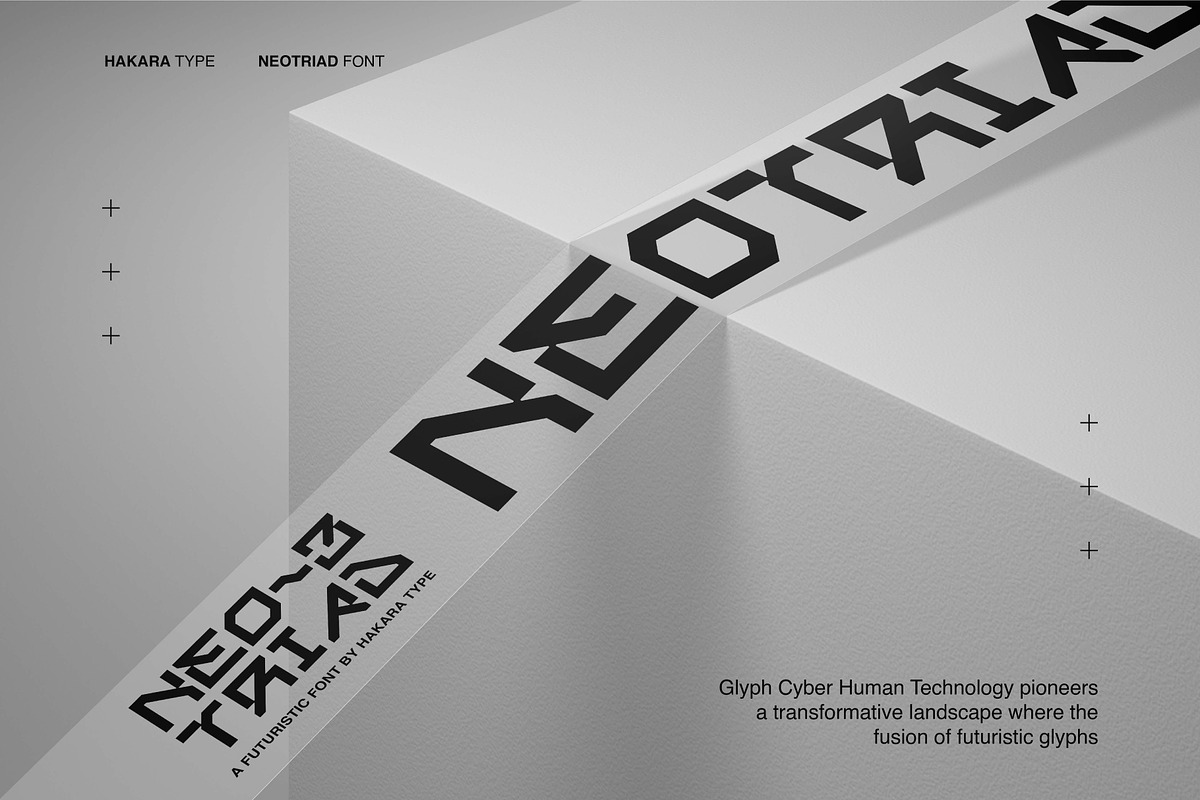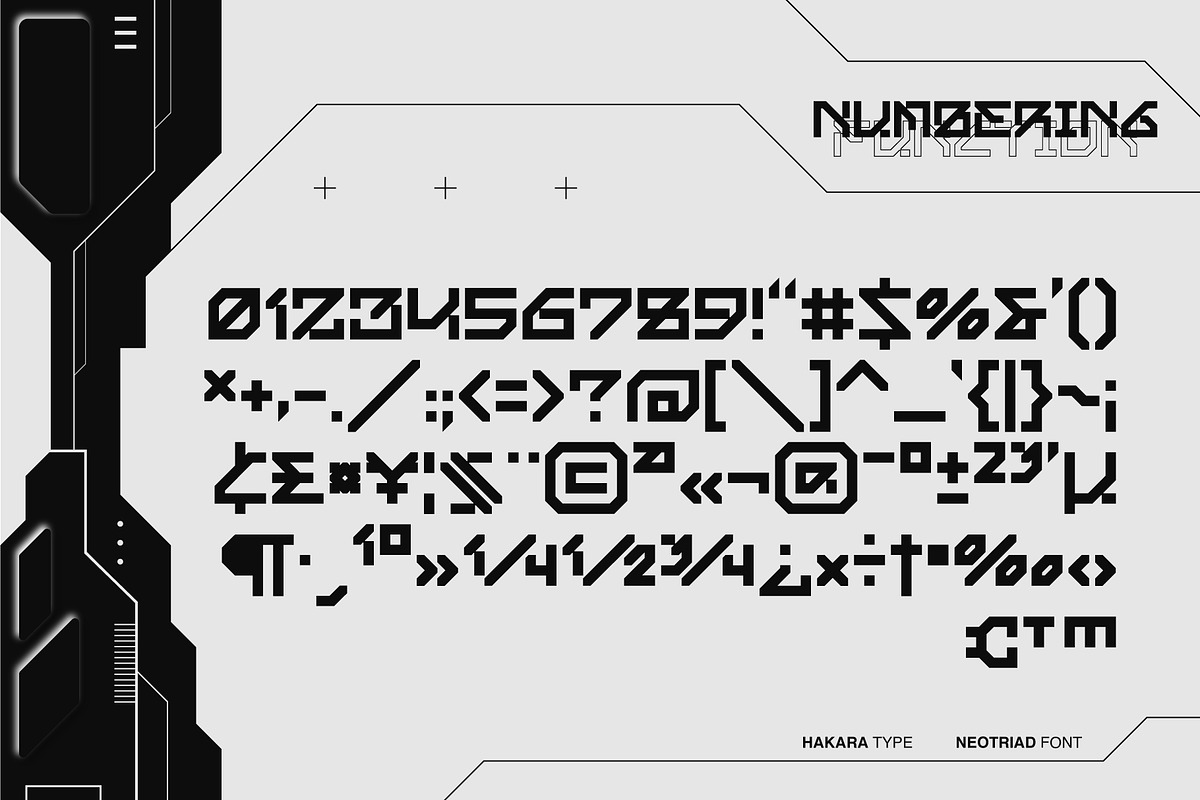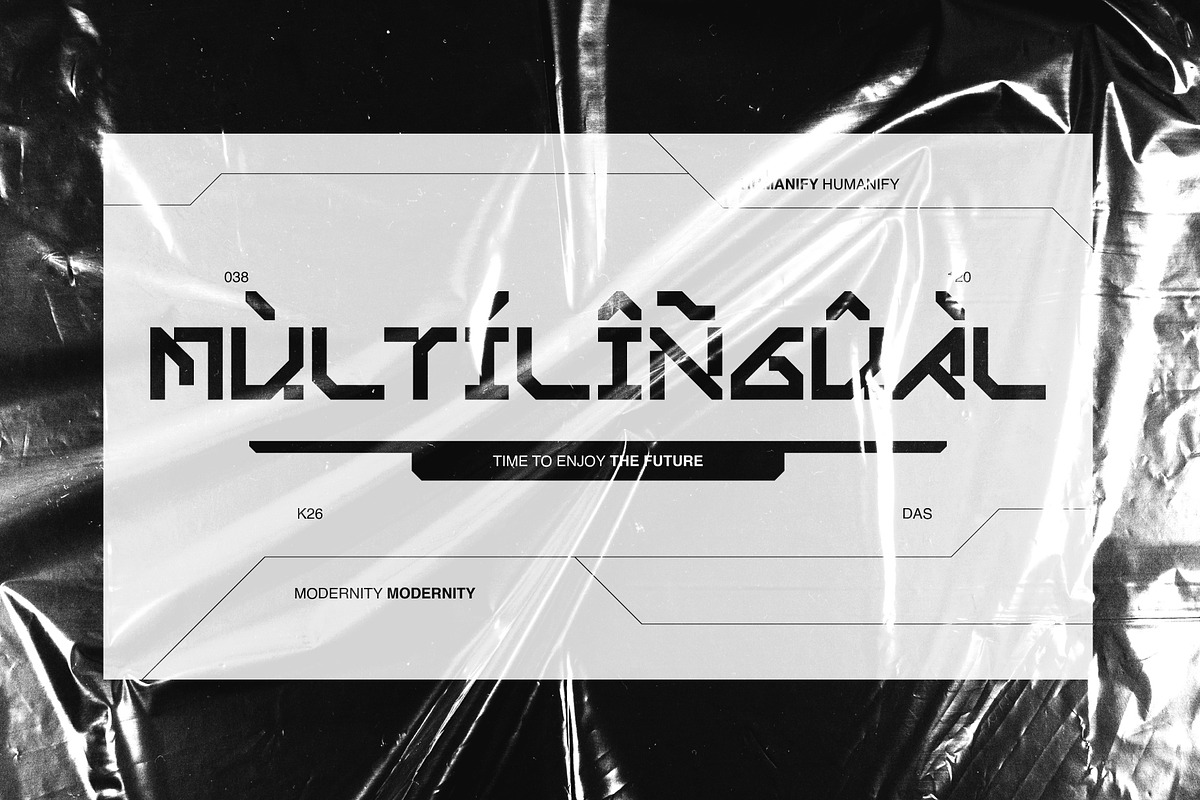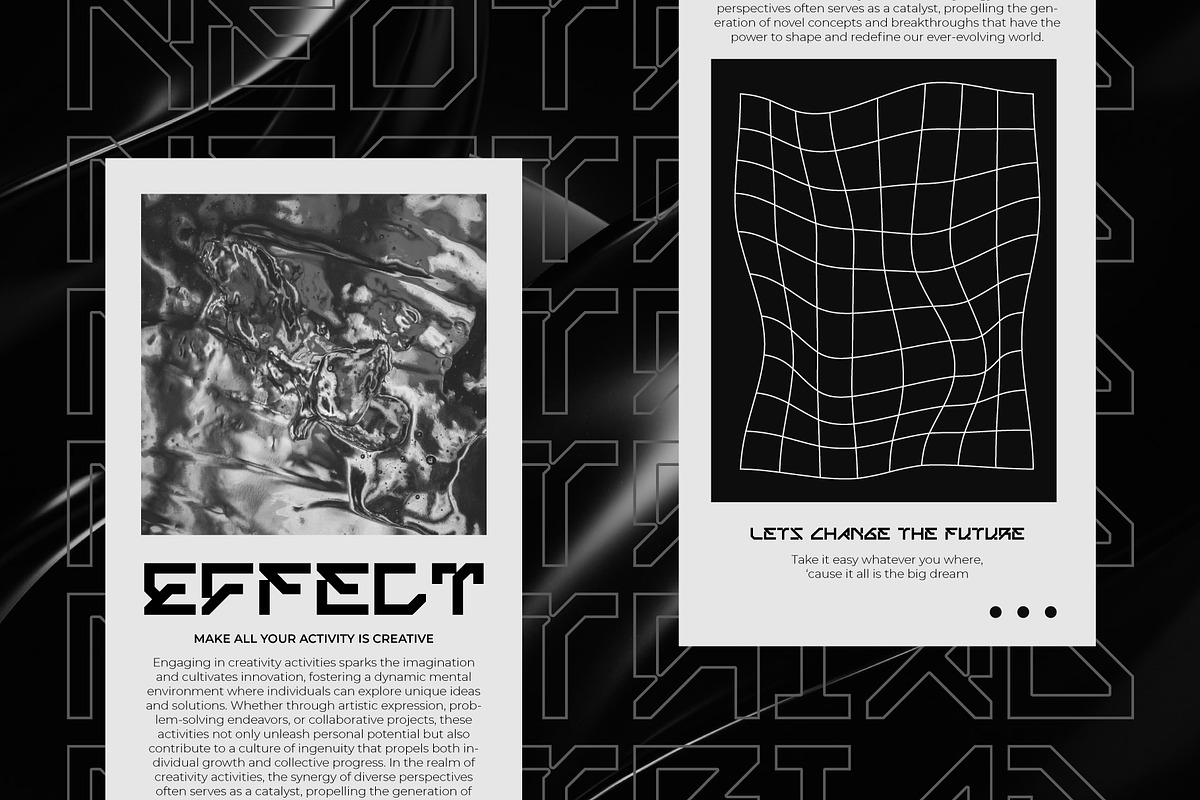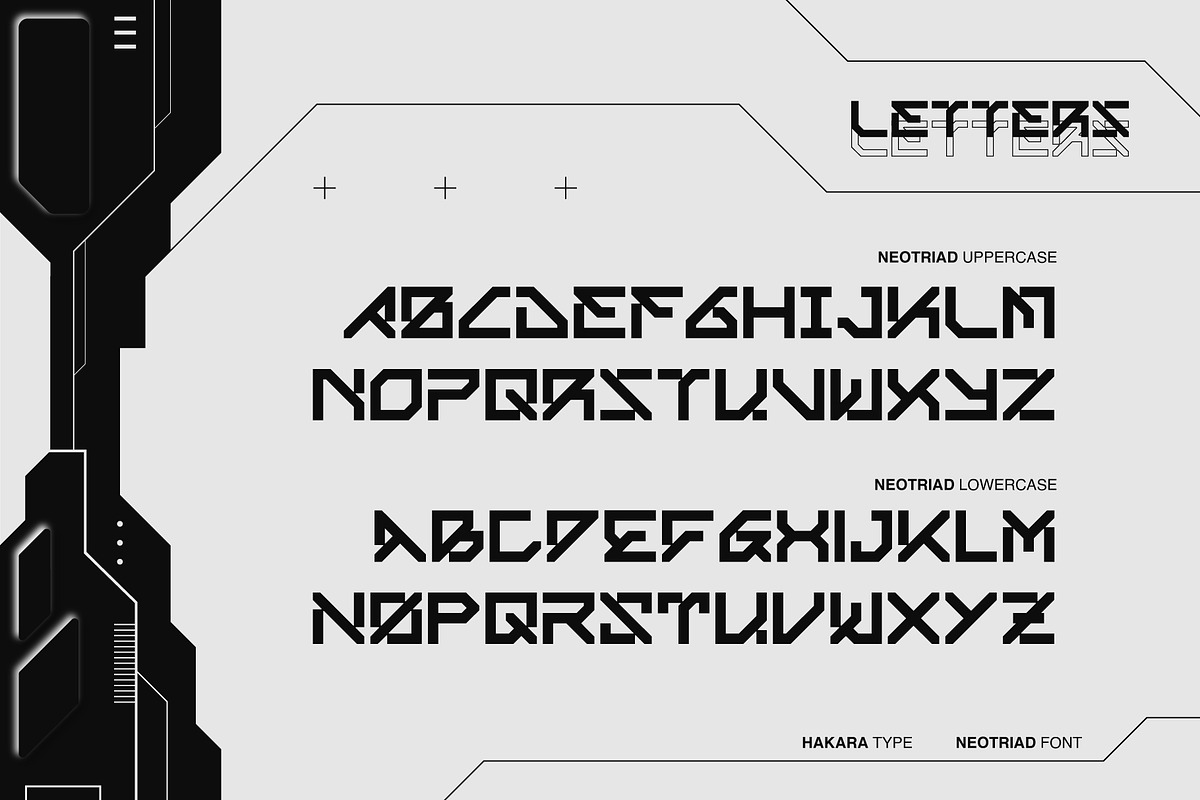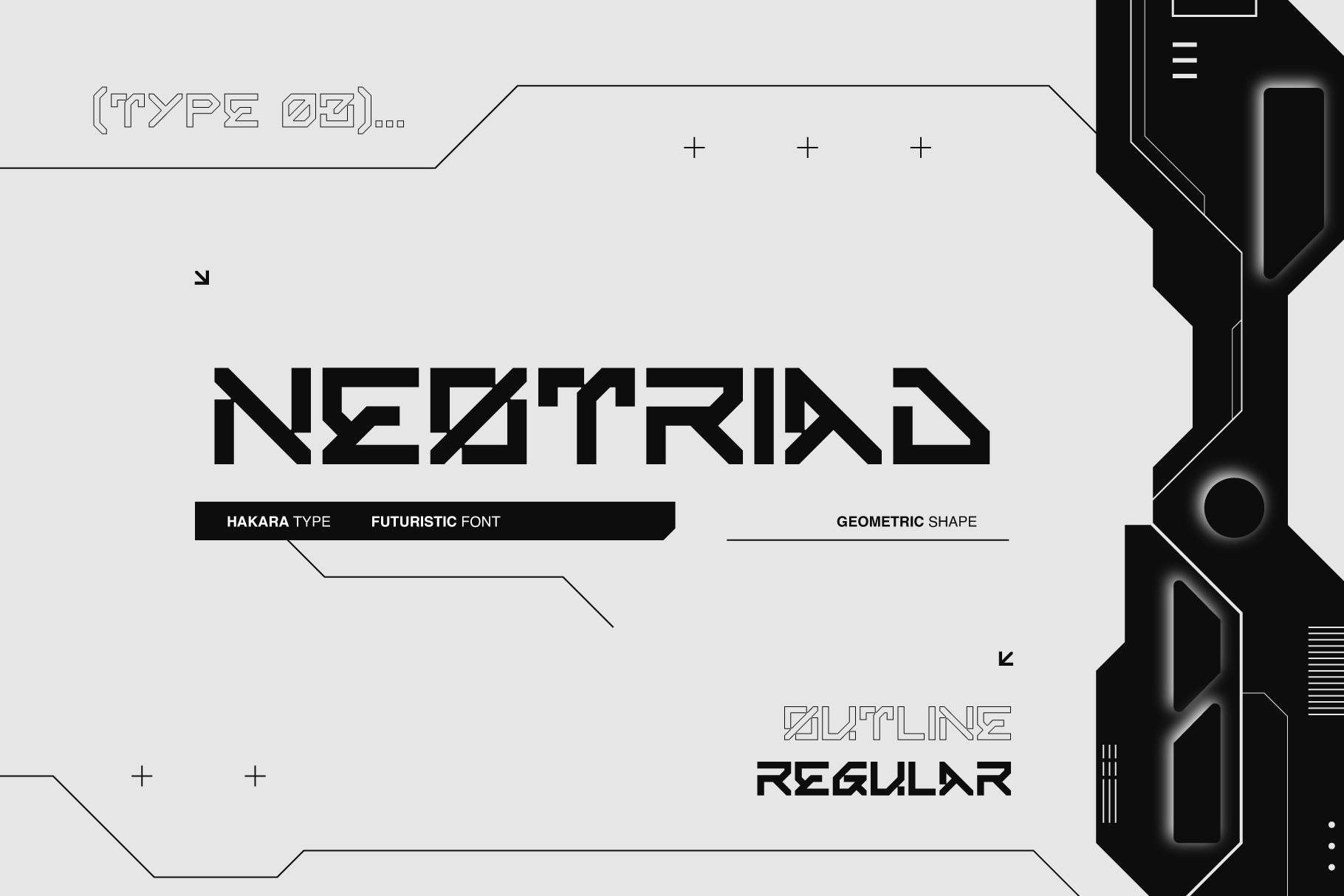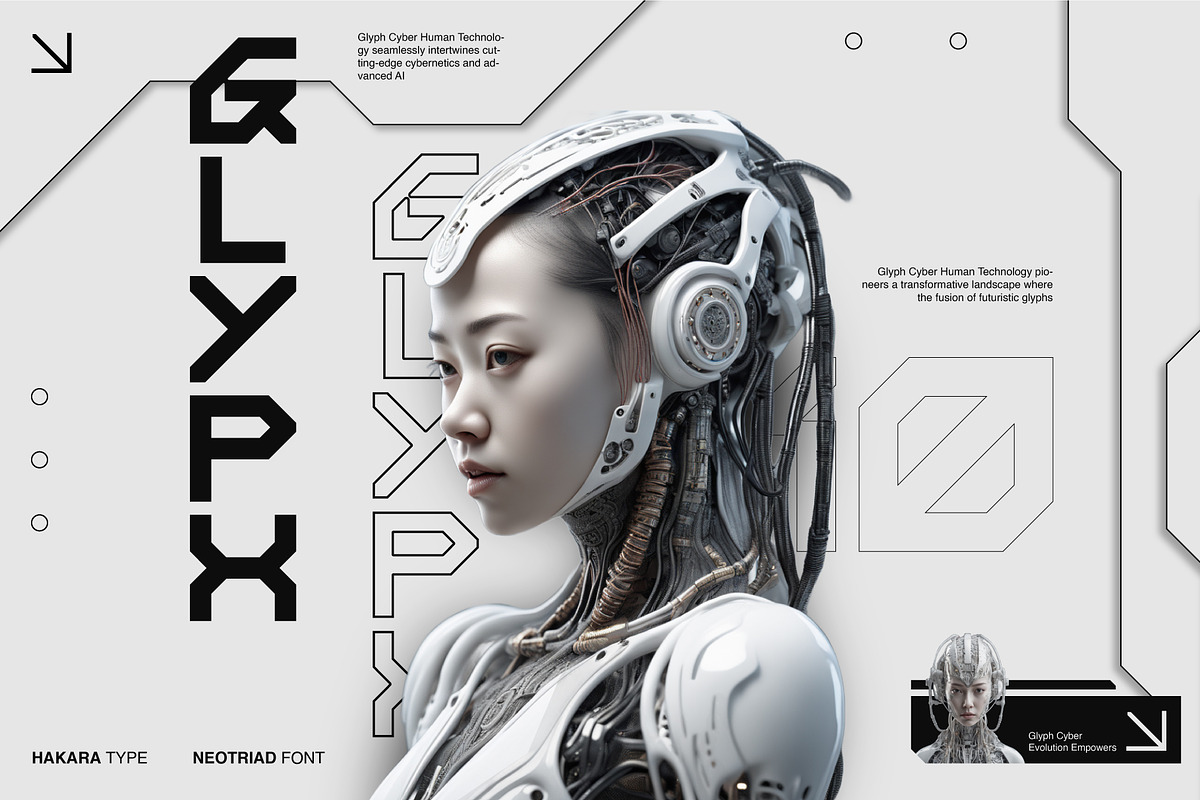
Neotriad - Futuristic Font
Neotriad is a futuristic font that blends elements of advanced technology with a sharp and precise aesthetic. Featuring triangular cutouts within each character, Neotriad exudes a strong modern impression, while the pointed tips on each letter add a contemporary edge. This font is ideal for projects embracing gaming style, web design, and visuals aiming to radiate a futuristic allure and a bold simplicity.
Neotriad comes with uppercase, lowercase, numbers, function, and included multilingual support.